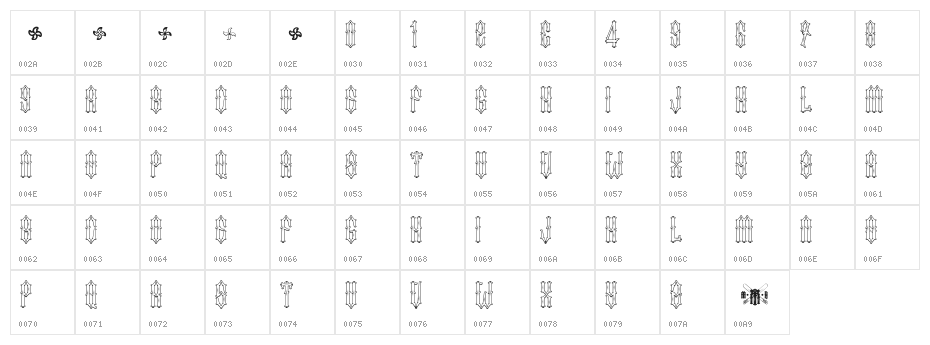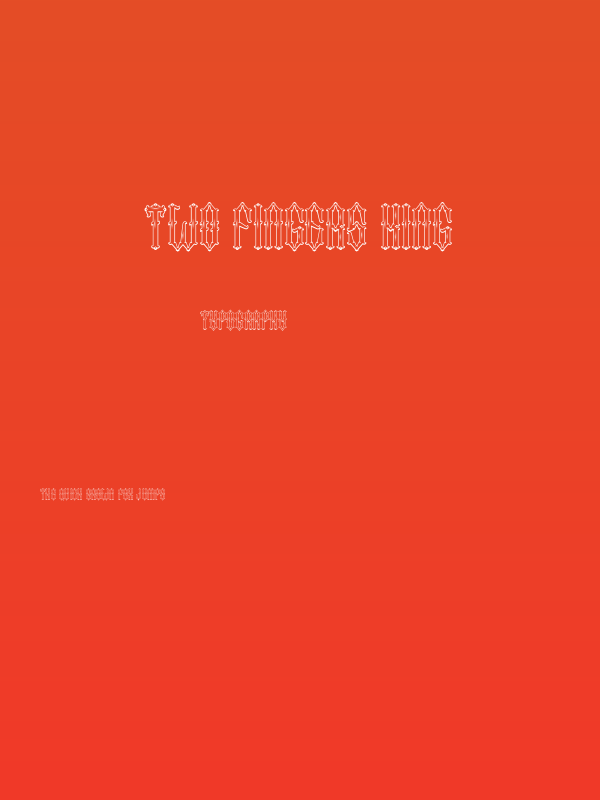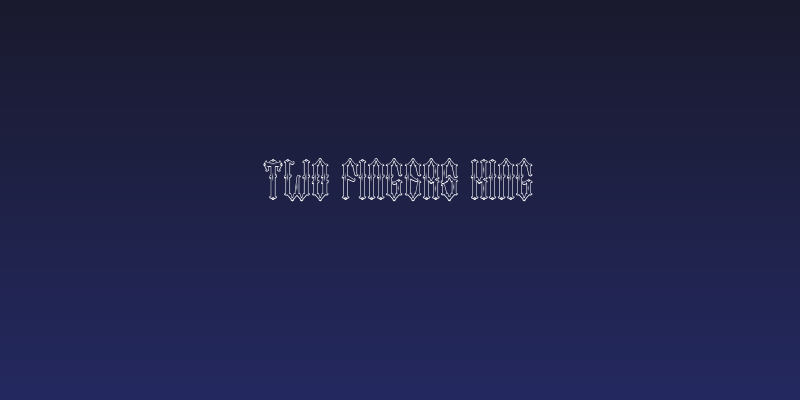
Two Fingers King Font
Two Fingers King Description
This font features an intricate and ornate design, reminiscent of traditional blackletter styles. Each character is crafted with elaborate detailing, including sharp angles and decorative flourishes that give it a regal and historical appearance. The uppercase and lowercase letters maintain a consistent style, with bold strokes and a high level of contrast between thick and thin lines. The numbers and special characters are equally detailed, ensuring a cohesive look across all elements. This font's unique style makes it stand out, suitable for projects that require a touch of elegance and tradition.
| Proposed Projects | Ideal for use in branding, invitations, certificates, and any design requiring a historical or elegant touch. |